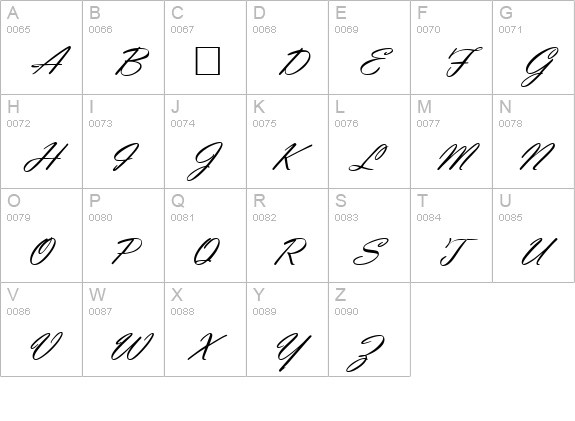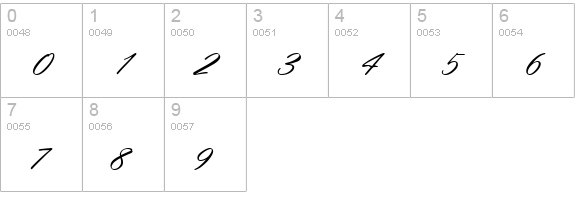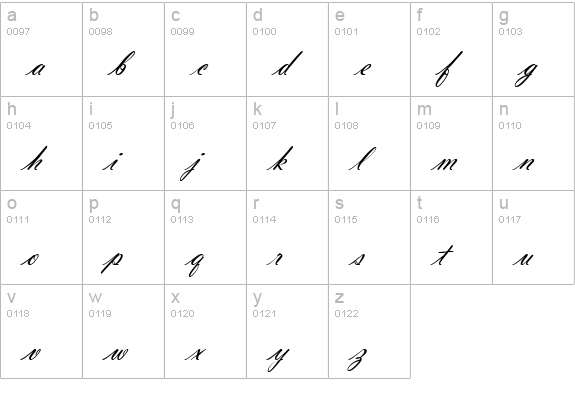
Avantage Font Details
Avantage font is a modern and elegant typeface that adds a touch of sophistication to any design project. With its clean lines and stylish curves, Avantage is perfect for creating eye-catching headlines, logos, and branding materials. This versatile font is sure to make your text stand out and grab attention. The best part? Avantage font is available for free download at FontsMarket.com. Whether you're a designer looking to add a new font to your collection or just someone who appreciates beautiful typography, Avantage is a must-have addition. Don't miss out on the opportunity to enhance your projects with this stunning font – download Avantage today and elevate your designs to the next level.